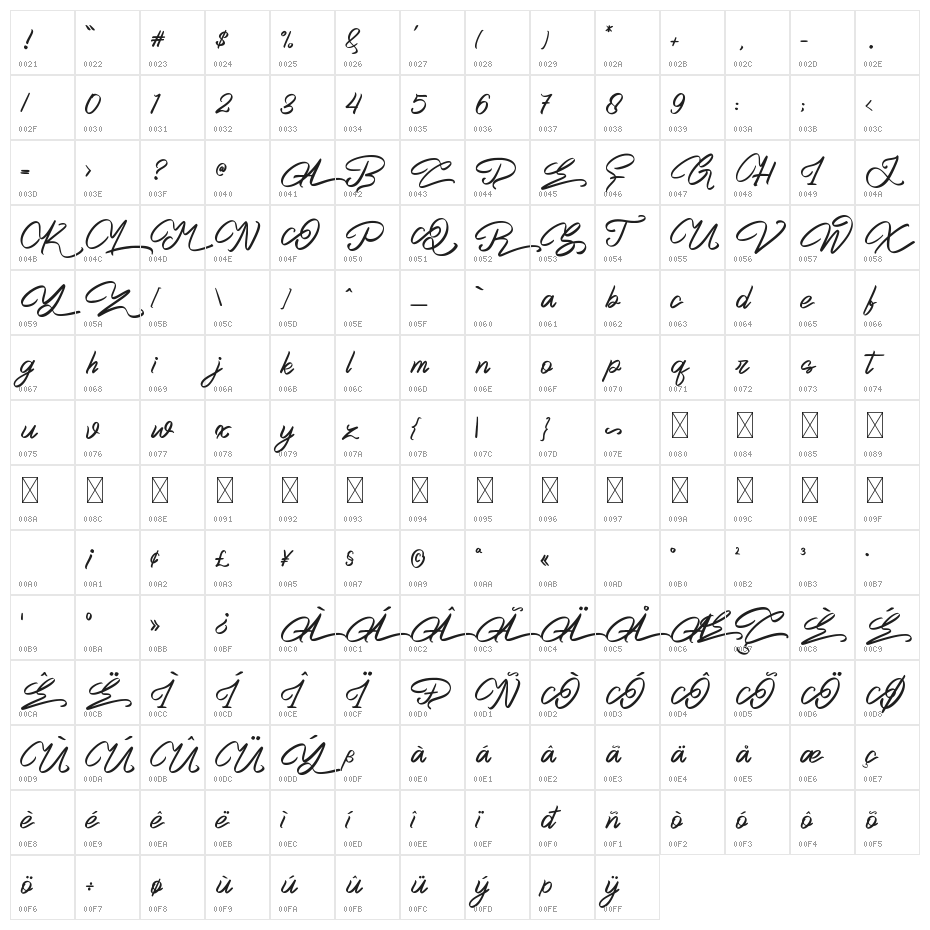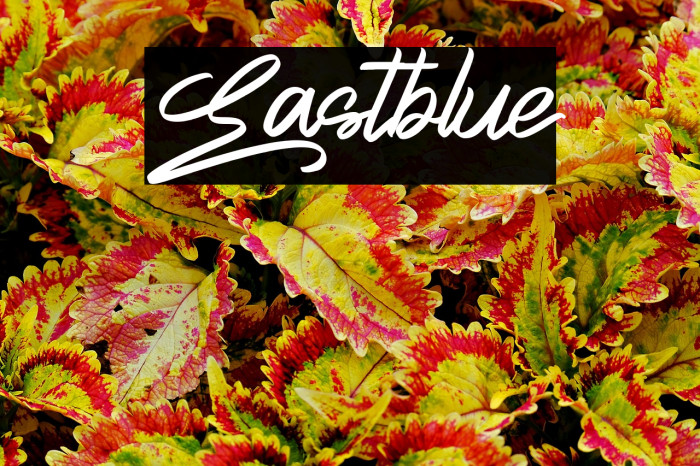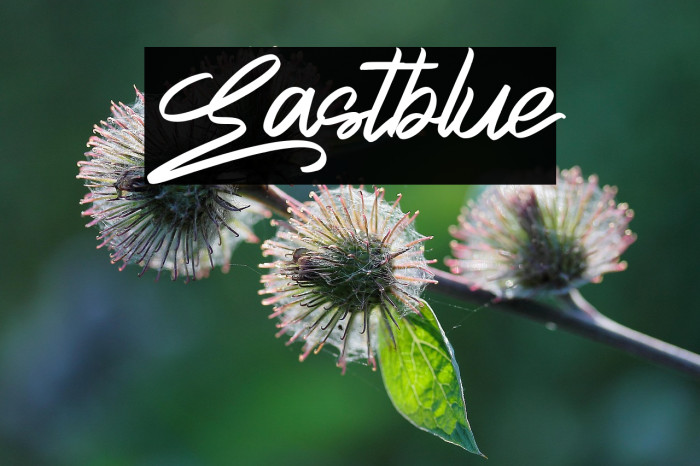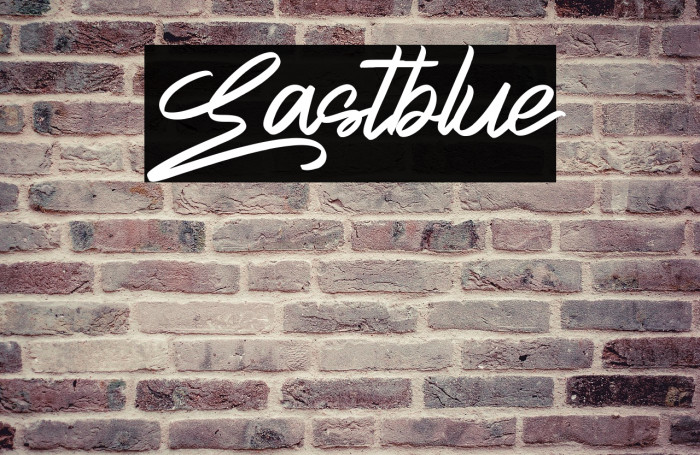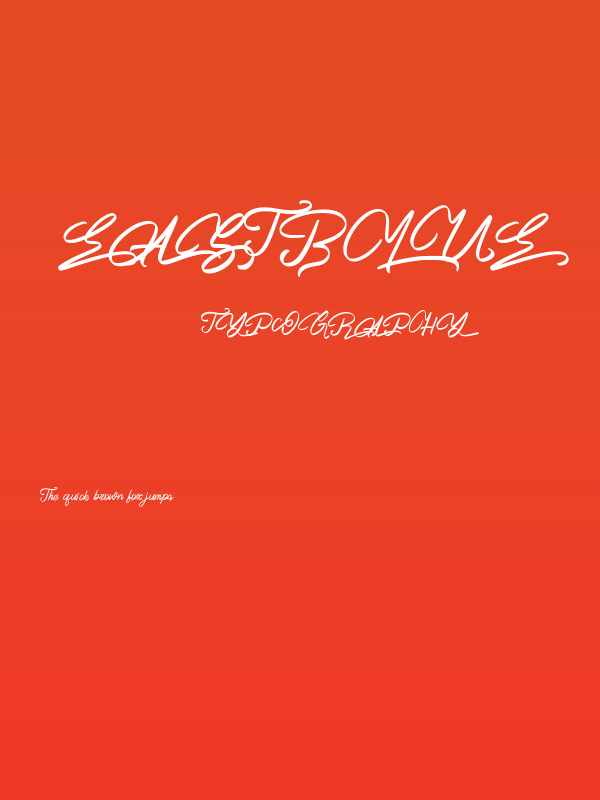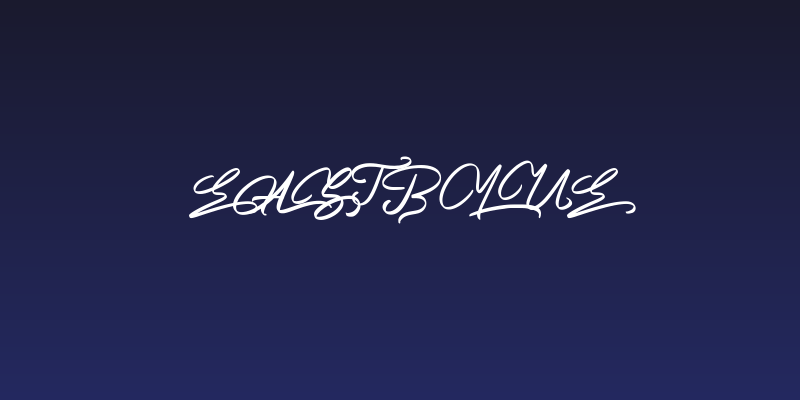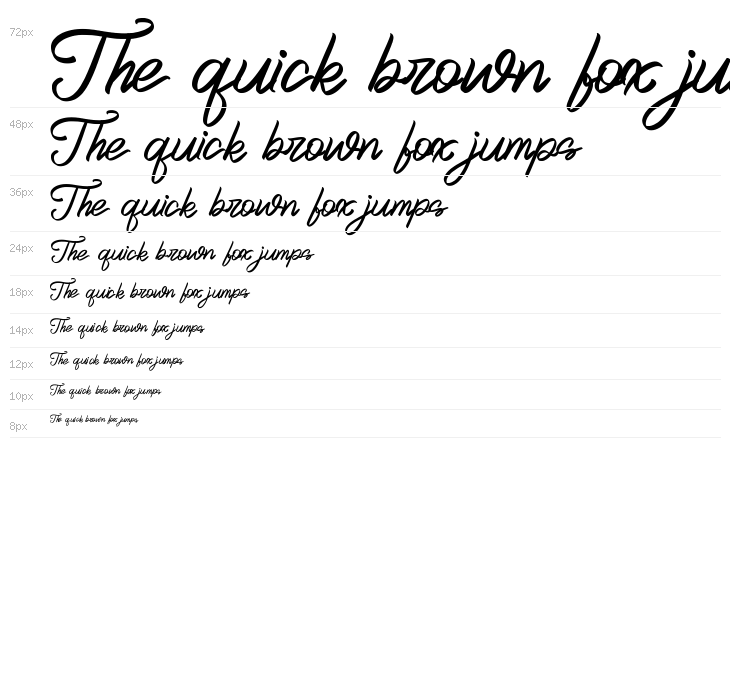
Eastblue Font
Eastblue Description
This font exudes a dynamic and elegant script style, characterized by its fluid and connected letterforms. The uppercase letters are bold and expressive, with intricate loops and swashes that add a sense of movement and flair. The lowercase letters maintain a consistent flow, enhancing readability while retaining a stylish appearance. Numbers and special characters are crafted with the same attention to detail, ensuring a cohesive look across all elements. The overall design is both sophisticated and approachable, making it suitable for a variety of creative applications.
| Proposed Projects | Ideal for wedding invitations, branding, greeting cards, and elegant packaging designs. |